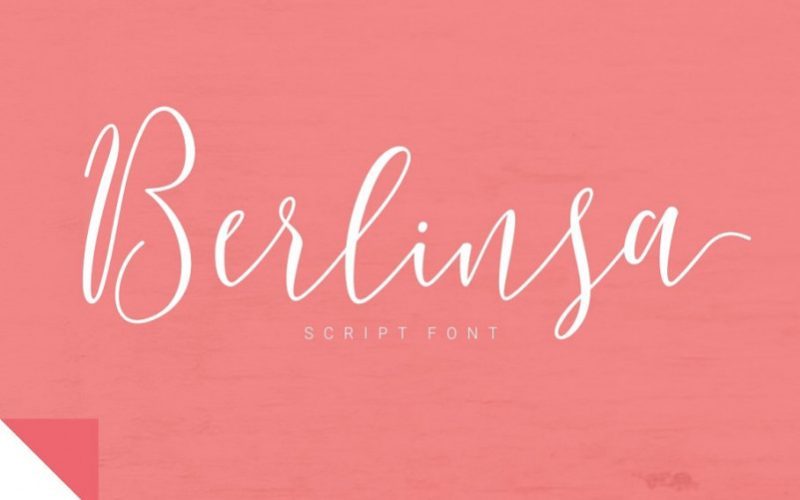
Berlinsa Handwritten Font
This is a modern script font with handwriting style. This time made smoother so it gives the character of handwriting very simple, real and sweet.
Berlinsa is perfect for logo’s, branding projects, homeware designs, product packaging, mugs, quotes, posters, shopping bags, logo’s, t-shirts, book covers, name card, invitation cards, greeting cards, and all your other lovely projects.